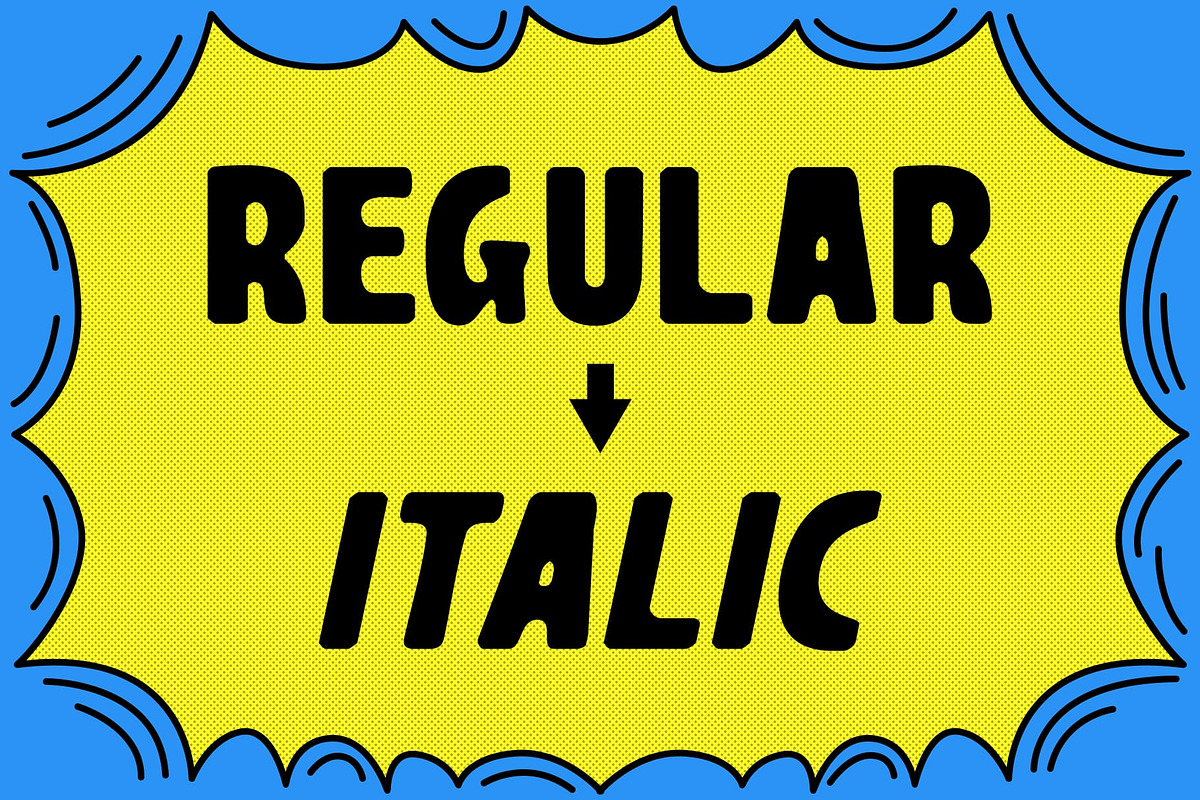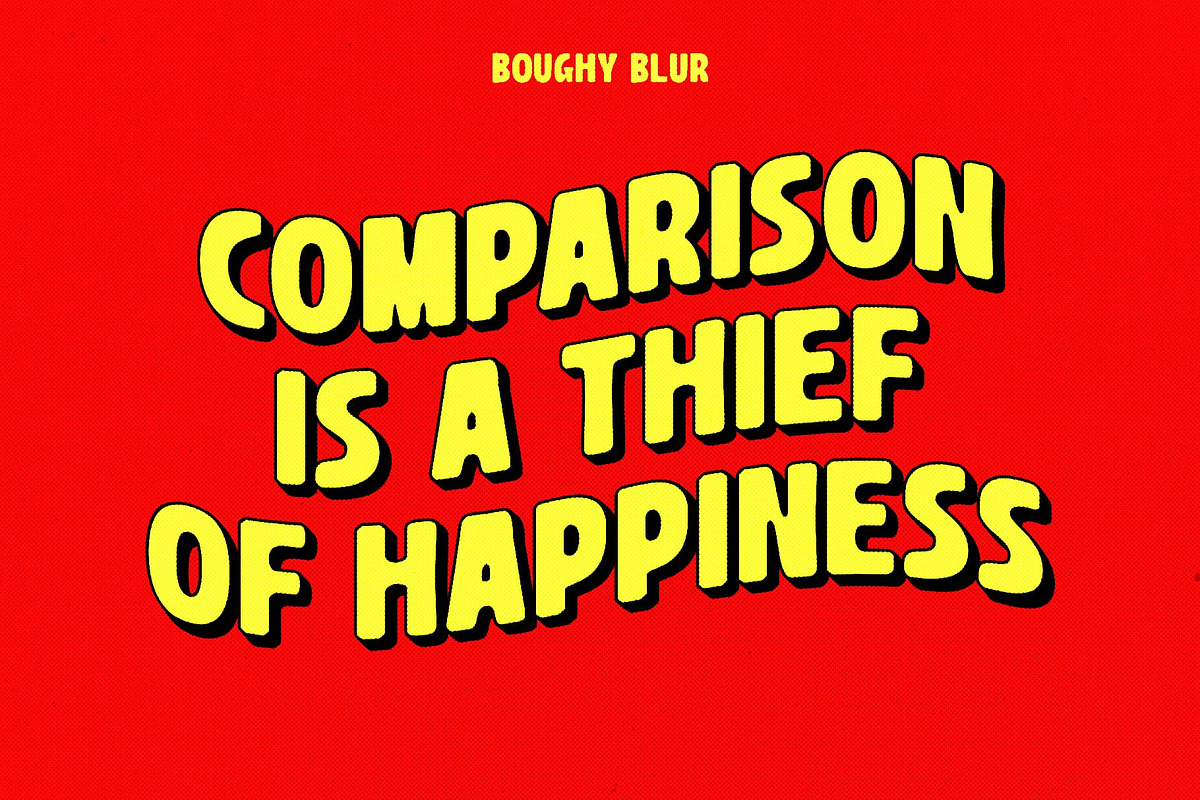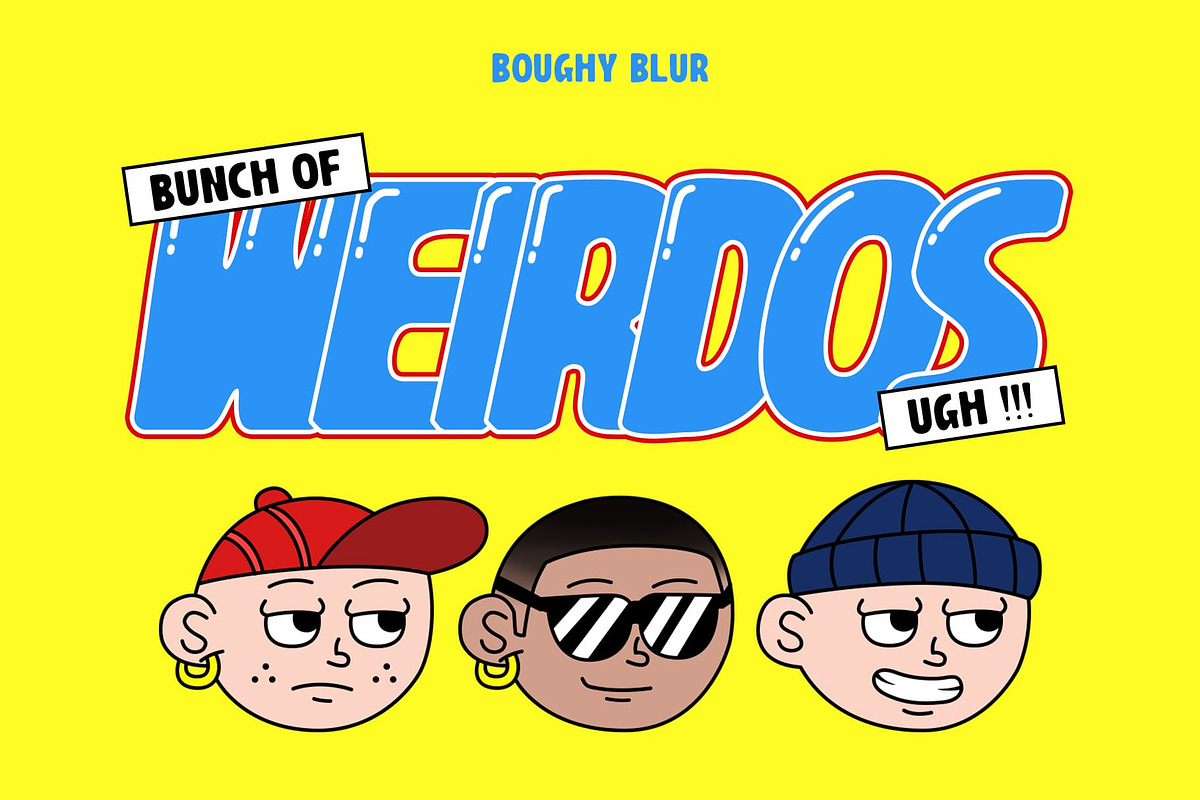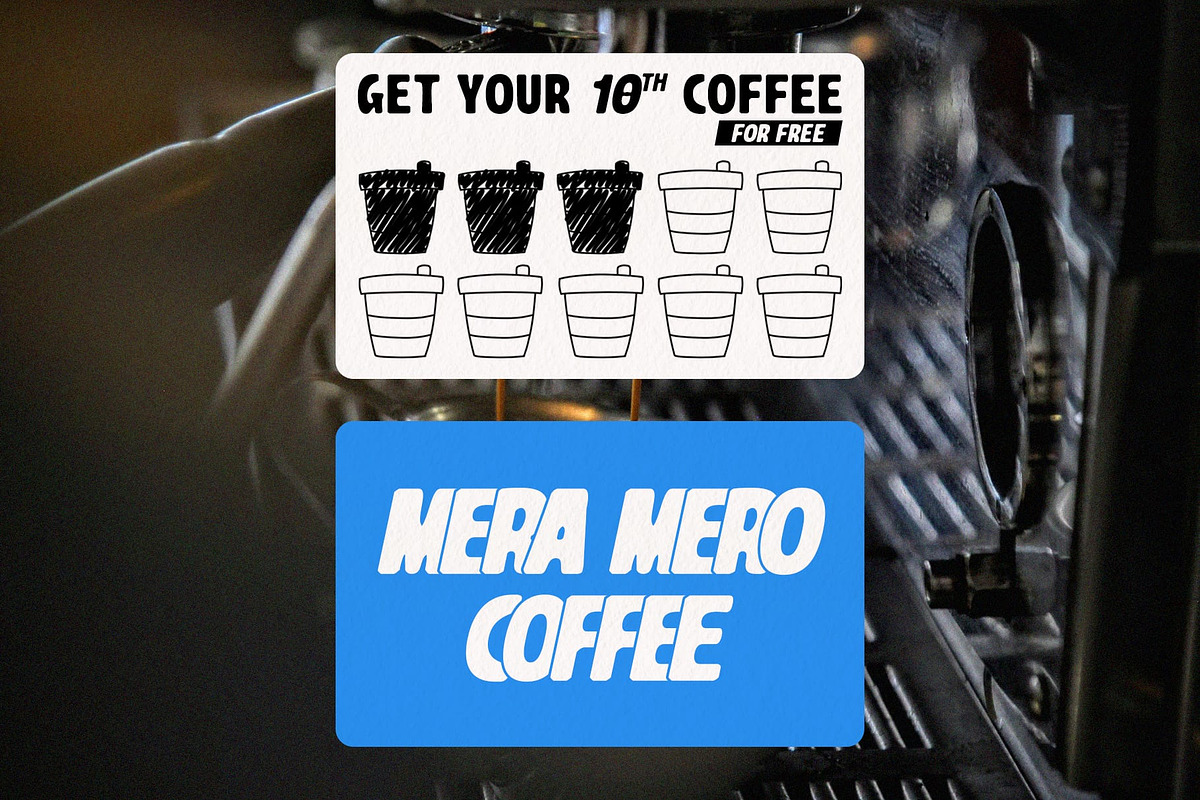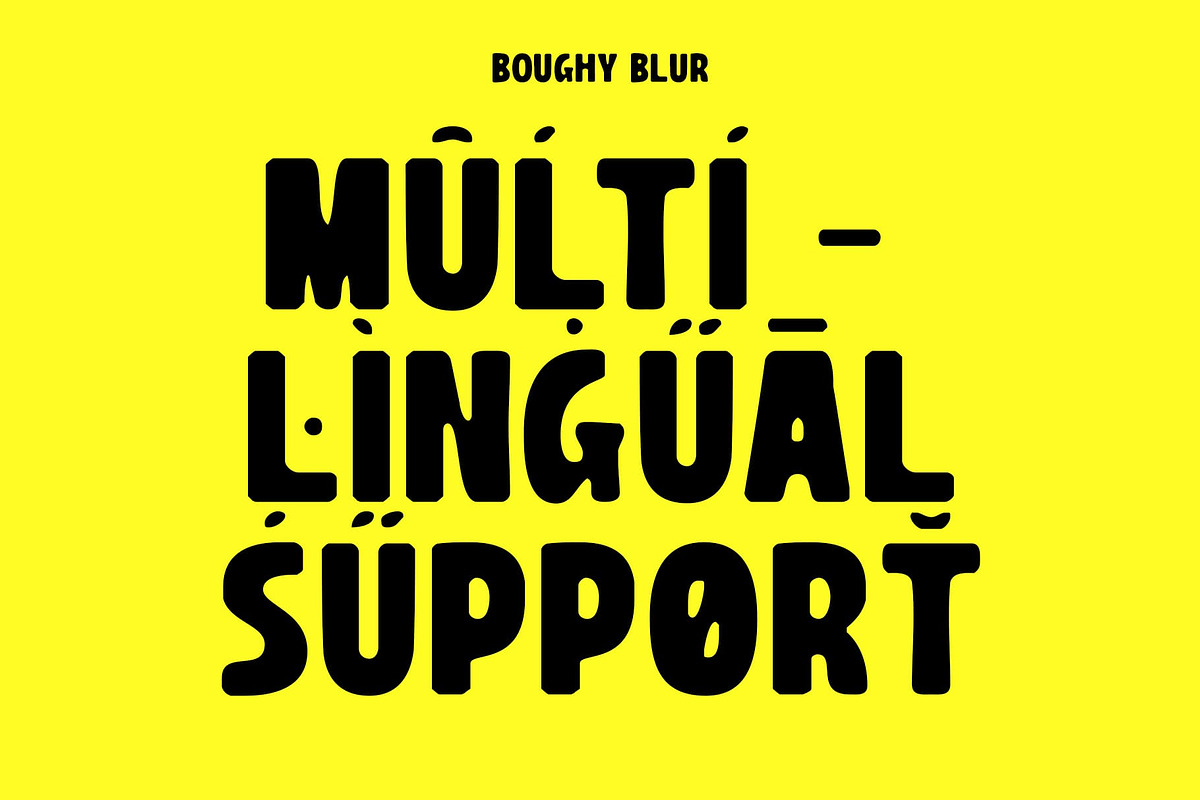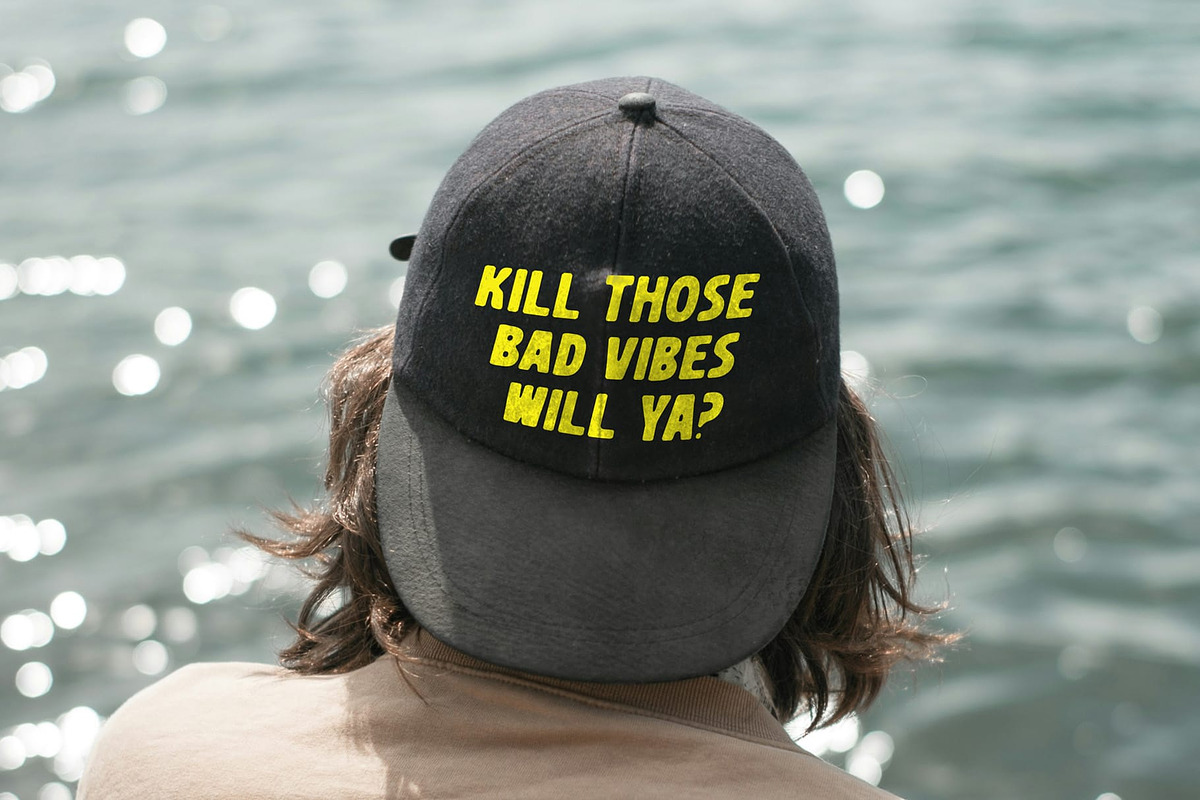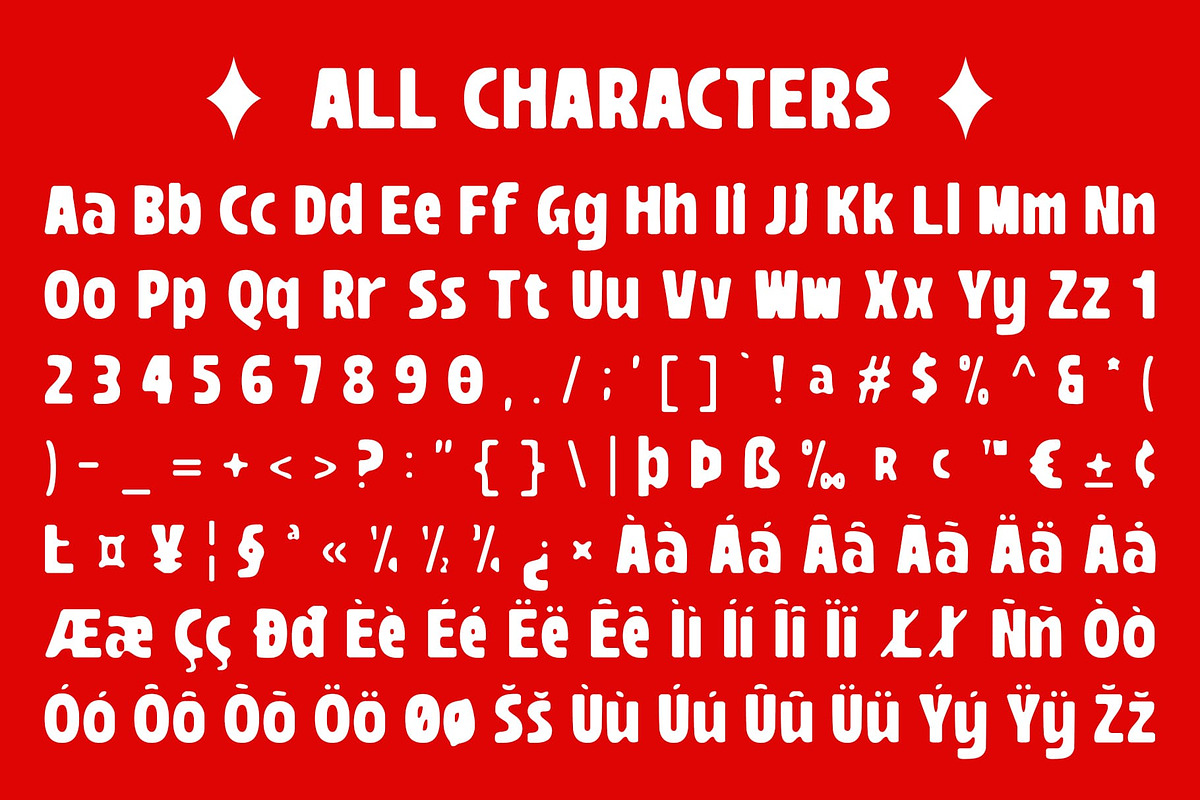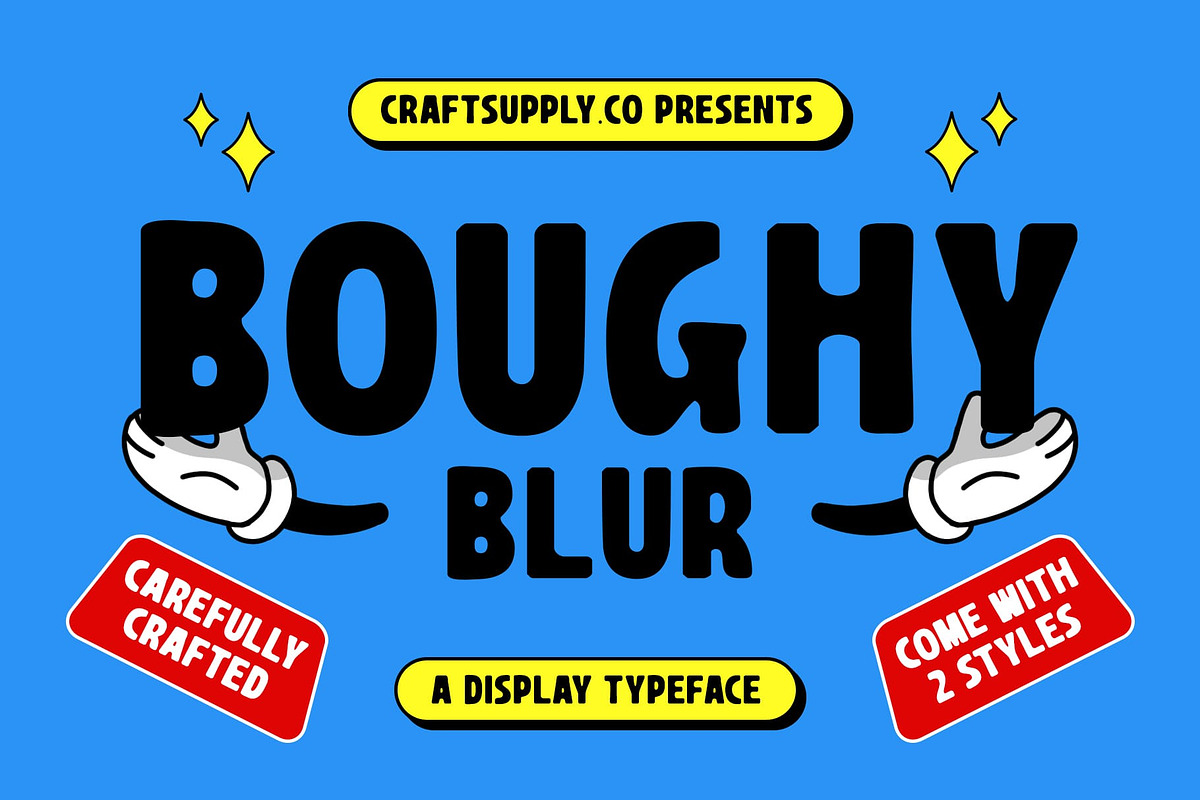
Boughy Blur
Boughy Blur: Bold Sans Serif Font with Blur Effect
Interesting and Unique Boughy Blur is a bold sans serif font with a blur effect. Suitable for designs aiming to present text with an interesting and unique impression, this font adds a dynamic and captivating look to your projects.
Ideal for Eye-catching Displays Perfect for headlines, banners, and other display purposes, Boughy Blur ensures your message is both seen and remembered. Its bold sans serif style, combined with a blur effect, makes it a striking choice for designs seeking to create an interesting and unique impression.
Versatile and Captivating Despite its bold appearance, Boughy Blur remains versatile and captivating. Its serif font format makes it suitable for a wide range of projects, from branding to digital designs, where a font that stands out is essential for making a statement.
Perfect for Adding a Unique Touch Boughy Blur is ideal for projects requiring a font with a unique touch. Whether you’re designing a poster, logo, or website, this font will undoubtedly add a distinct and memorable element to your designs.